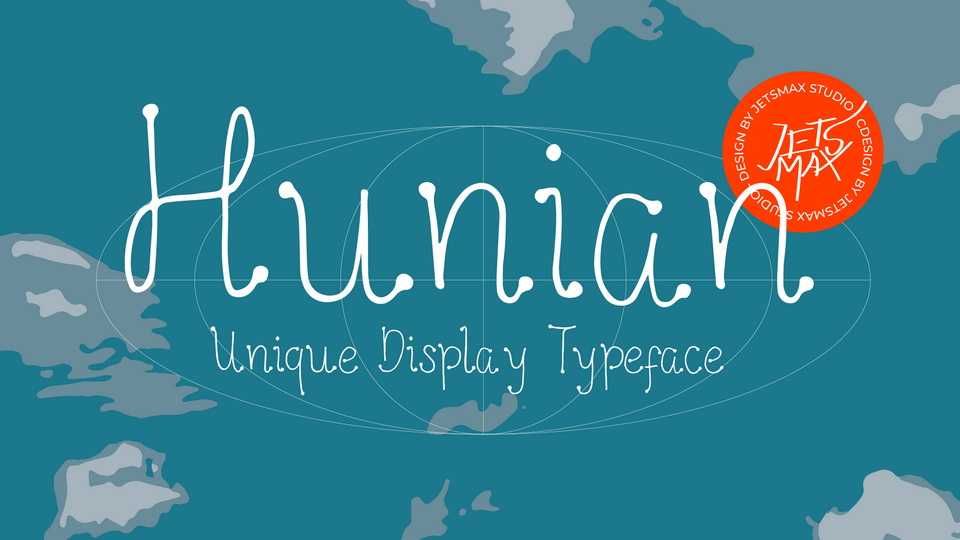
Download Hunian font, a hand drawn display typeface, curved in a unique and special way to complement your creative projects.
Designer: Jetsmax Studio